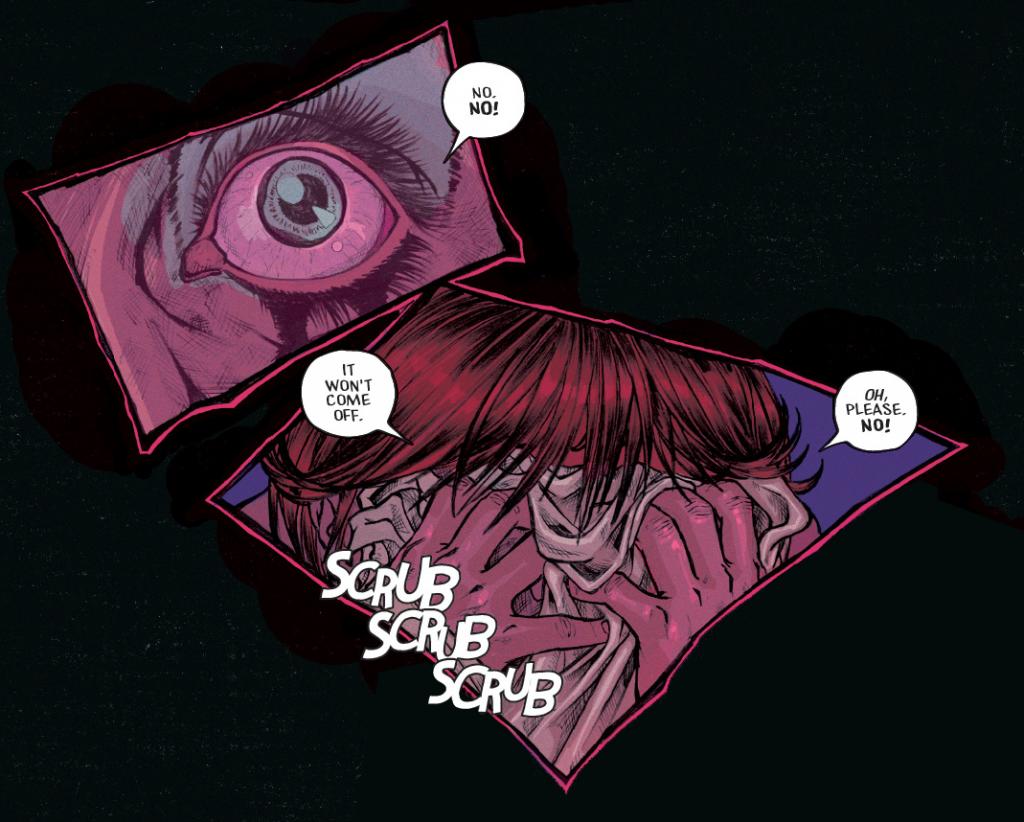
I'm thoroughly besotted with Blambot's Tough As Nails BB at the moment. I'm using it on two books, and coupled with my newly-perfected slightly irregular balloons, I (immodestly) think it looks fantastic.